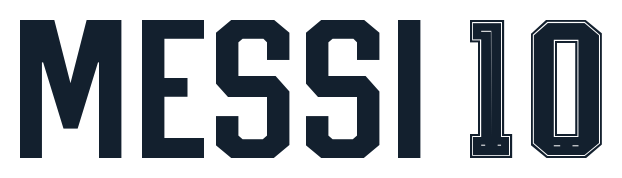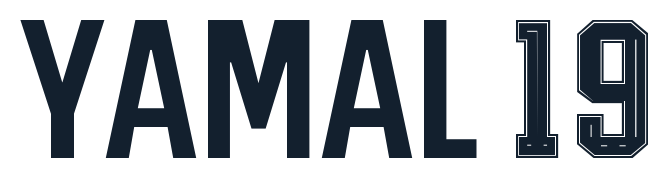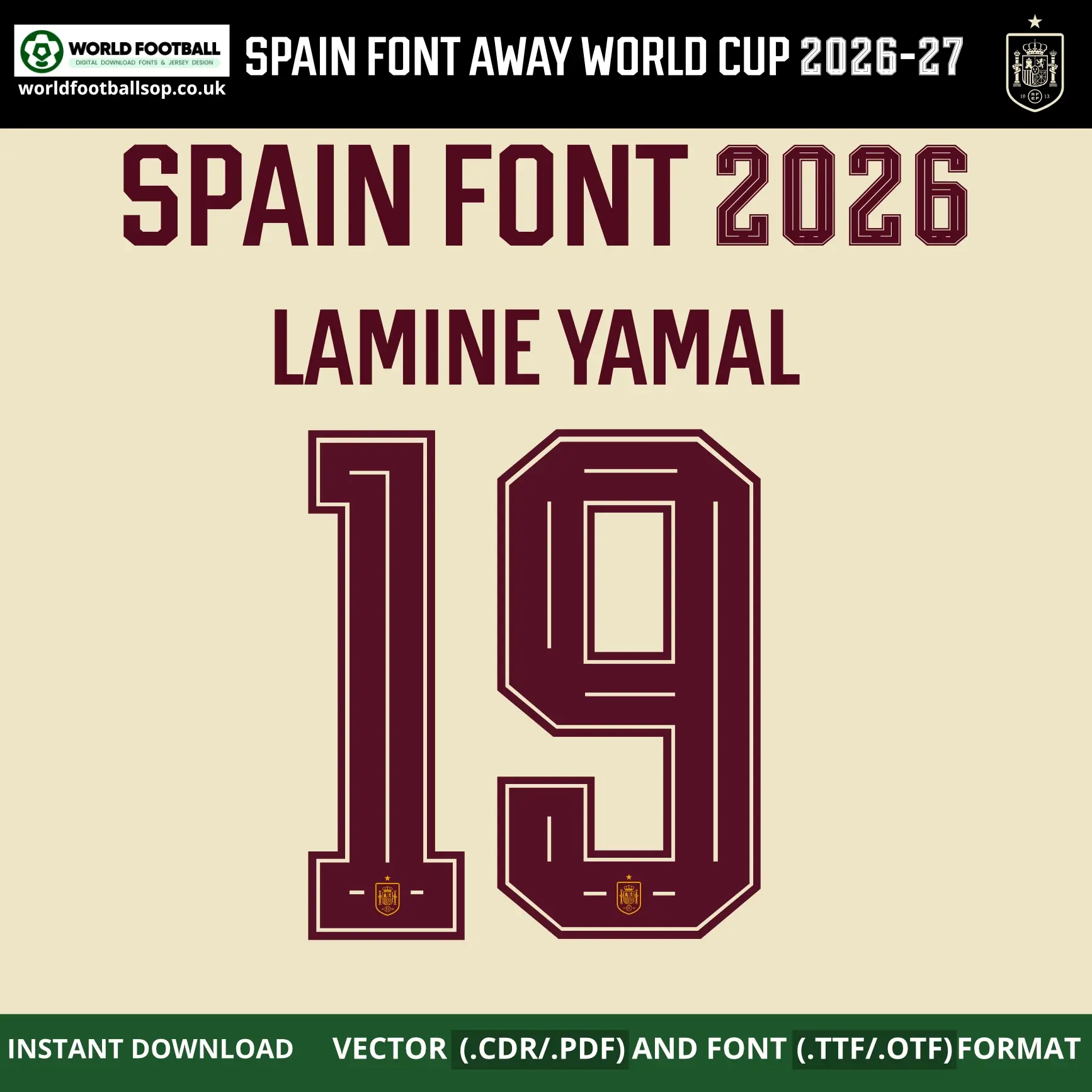
Spain Away World Cup 2026 Font - Official‑style Jersey Typography
This Spain Away World Cup 2026 font kit recreates the bold geometric lettering used on Spain’s away shirts for the 2026 FIFA World Cup in USA, Mexico and Canada. The tall, angular numbers and narrow letters capture the modern Adidas look, with sharp inner lines that echo the away shirt’s minimalist style. It is perfect for fans, designers and printers who want authentic‑looking names and numbers on custom Spain kits and football graphics.
The font is supplied in both desktop formats (TTF/OTF) and scalable vector files so you can work comfortably in your favourite design software. The dark red lettering on a cream background seen in the previews mirrors Spain’s official away color palette, making your mockups and prints look match‑ready.
Full uppercase alphabet A-Z and numbers 0-9 with extended Latin accents (Á, É, Í, Ó, Ú, Ü, Ñ, Ç, Š, Ž)
Preview layouts showing complete number set and example name/number combo for a Spain star player
World Cup accuracy: Inspired by the exclusive Spain 2026 World Cup kit font, not a generic Adidas typeface
High legibility: Tall, geometric forms keep numbers clear on both TV and print designs while maintaining Spain’s unique identity
Whether you are designing a full squad of custom Spain shirts or a single fan jersey with your own name and number, this Spain Away World Cup 2026 font kit gives your project a professional, on‑pitch look.